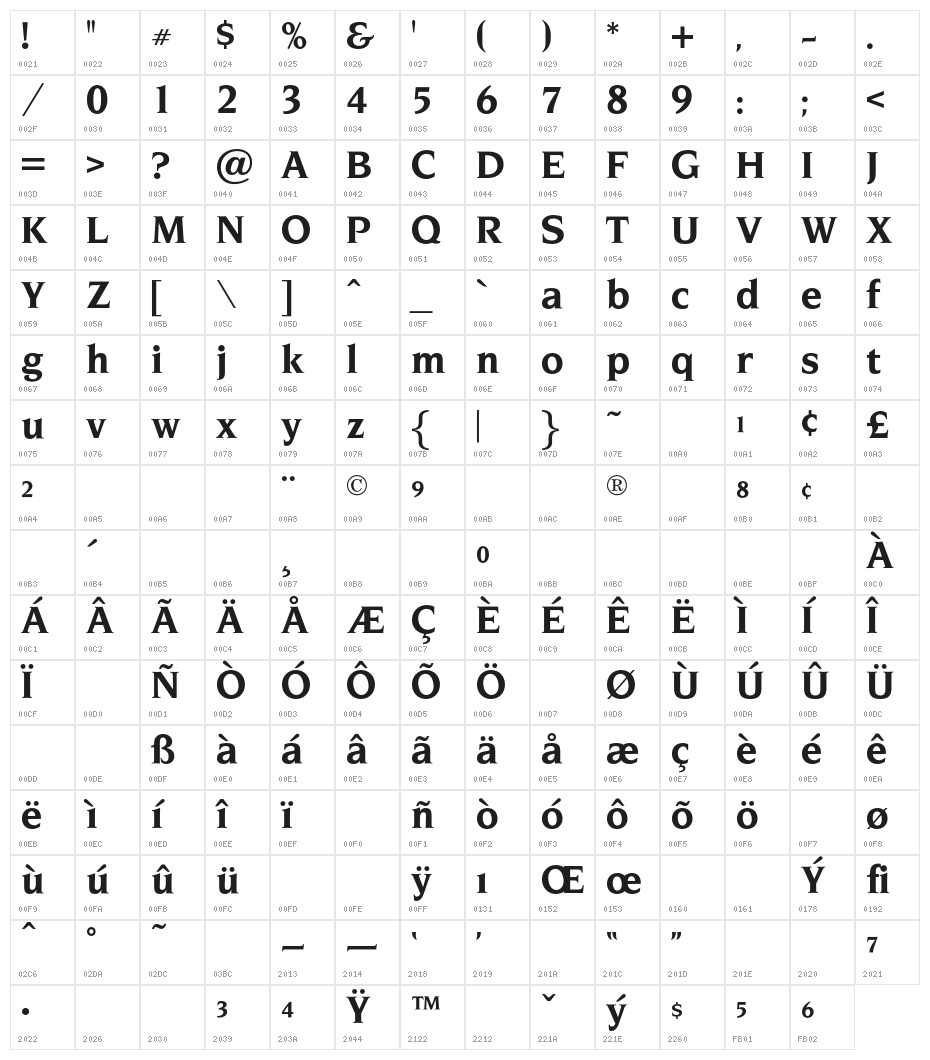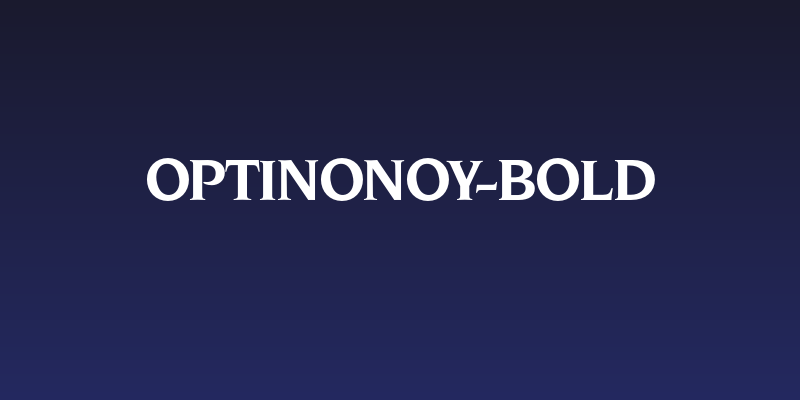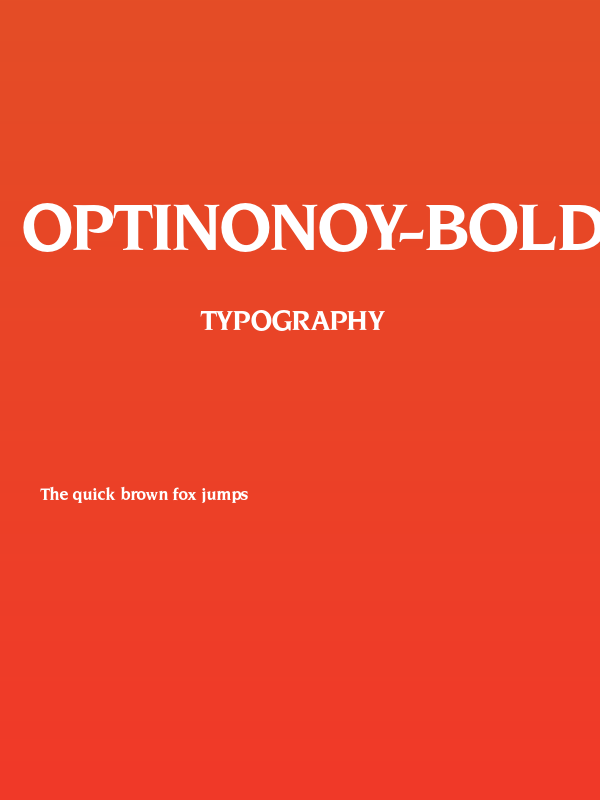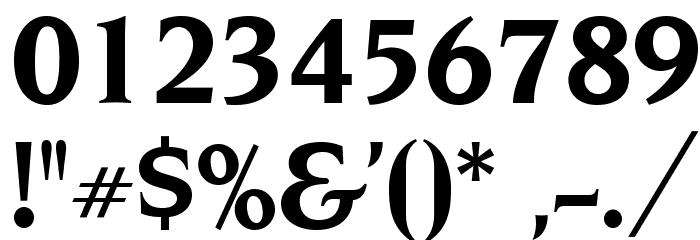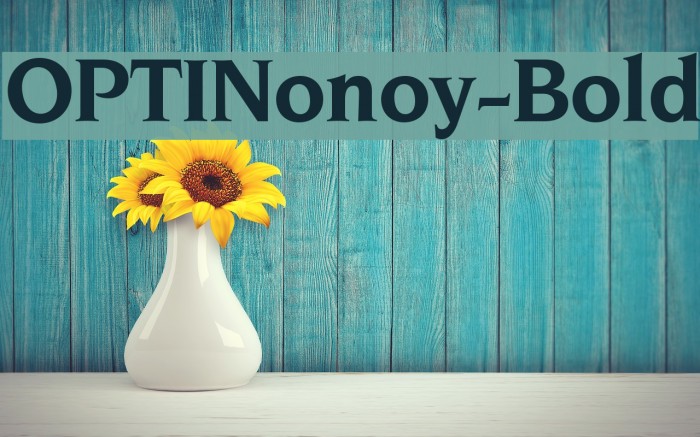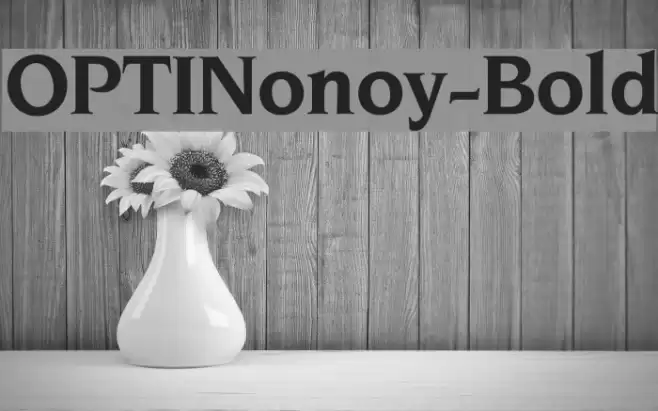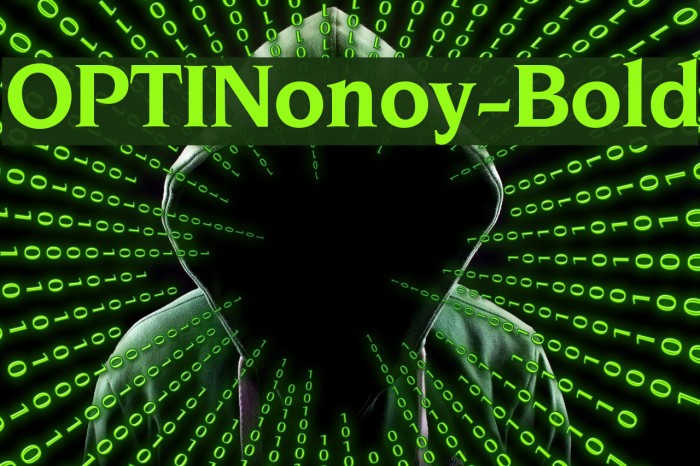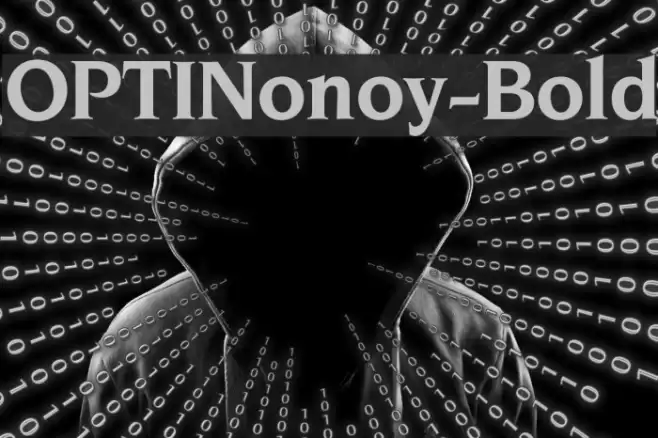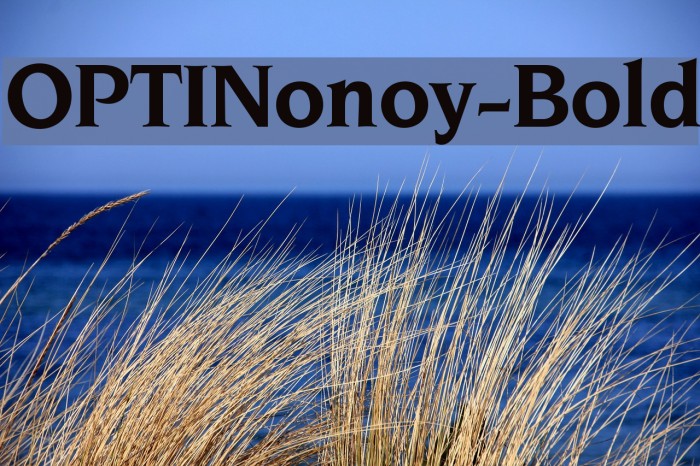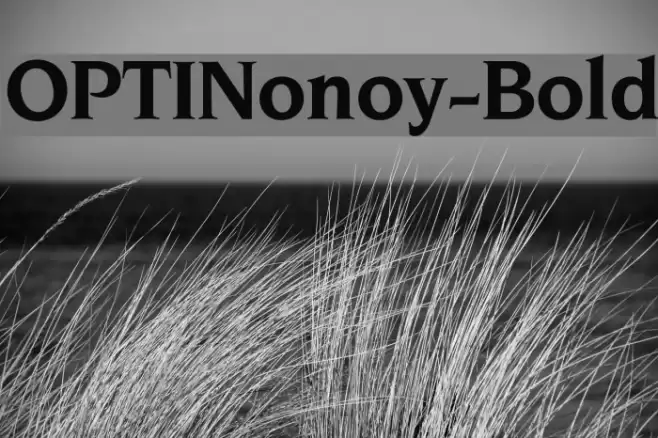
OPTINonoy-Bold Font
OPTINonoy-Bold Description
This font features a bold and commanding presence with its strong, thick strokes and classic serif design. The uppercase letters are robust and authoritative, while the lowercase letters maintain a consistent weight, providing a harmonious balance. The numerals are clear and easily distinguishable, making them suitable for both display and text purposes. Special characters are well-integrated, maintaining the overall aesthetic of the font. The serifs are pronounced, adding a touch of elegance and tradition, making it ideal for projects that require a formal and professional appearance.
| Overall Style | Classic |
| Proposed Projects | Ideal for book covers, editorial headlines, corporate branding, and formal invitations. |